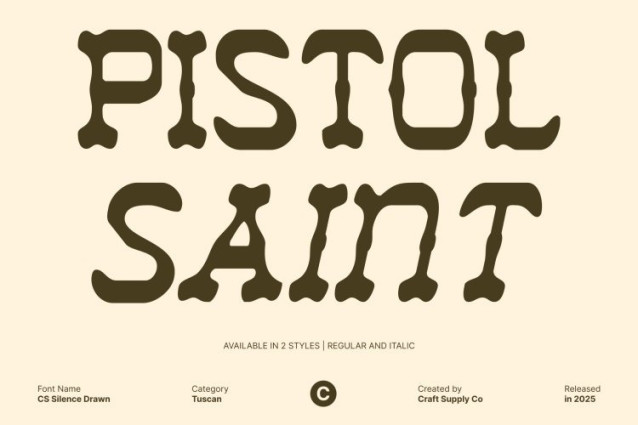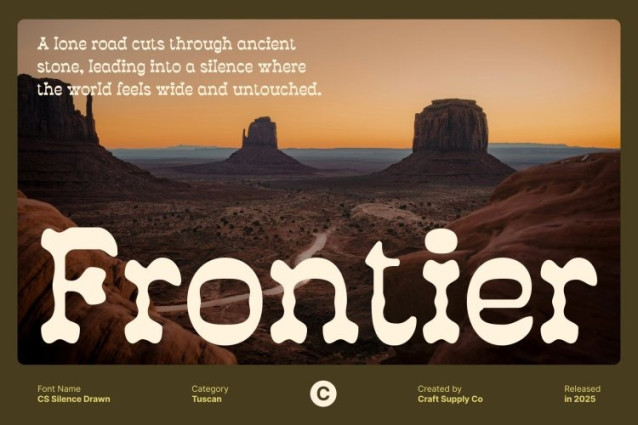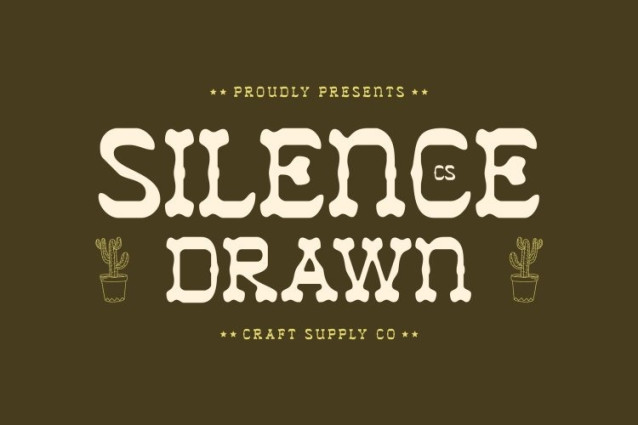
CS Silence Drawn Font
CS Silence Drawn Font – This is an inspired display typeface that blends traditional vintage design elements with distinctive Tuscan serif styles. Its decorative serifs, dramatic contrasts, and expressive letterforms reflect classic typographic traditions often associated with historical signage and ornamental lettering.
Cultural Influence with Authentic Mexican Aesthetics
Rooted in the visual language of Mexican cultural artistry, captures the warmth and depth of traditional design. Its intricate details and decorative structure echo hand-painted signage, folk typography, and historical print styles. This cultural influence brings authenticity and storytelling power, making the font ideal for projects that aim to express history, tradition, and a strong sense of place.
Hand-Drawn Effect for Soft Artistic Expression
The drawn effect adds a soft, artistic quality that enhances the font’s decorative nature. Subtle irregularities and organic strokes introduce a handcrafted feel, reducing rigidity and adding warmth to the overall form. This handmade texture creates a natural rhythm across the letterforms, allowing the font to feel approachable, expressive, and visually engaging while preserving its ornamental strength.
Decorative Versatility for Expressive Design Use
This is designed for statement-driven projects such as branding, posters, packaging, book covers, labels, and cultural or editorial designs. Its combination of vintage Tuscan structure, cultural influence, and hand-drawn artistry makes it highly effective for designs that require authenticity and decorative flair.